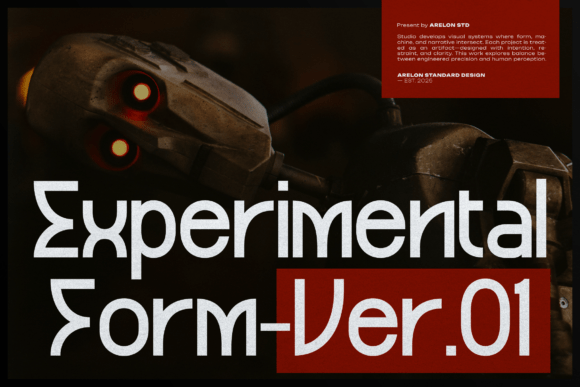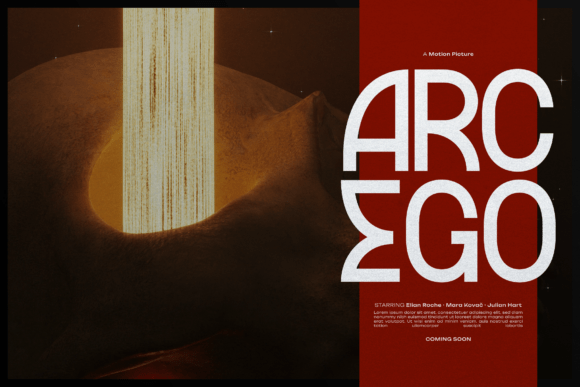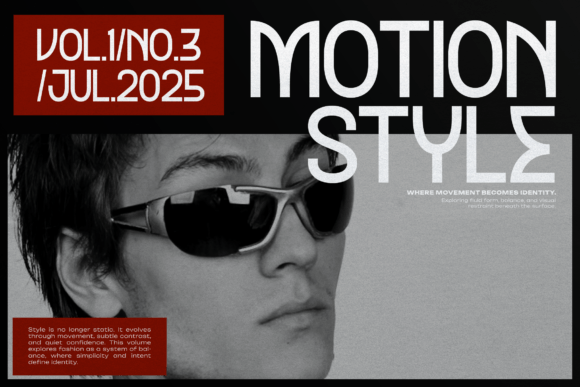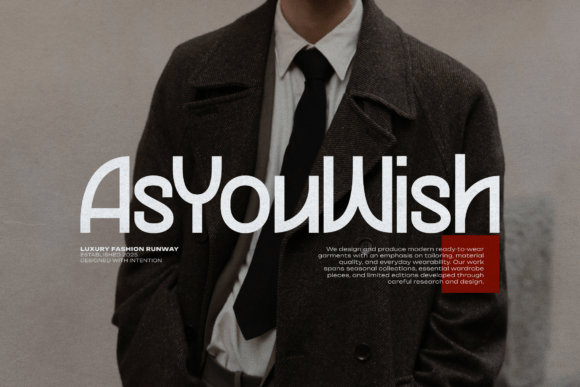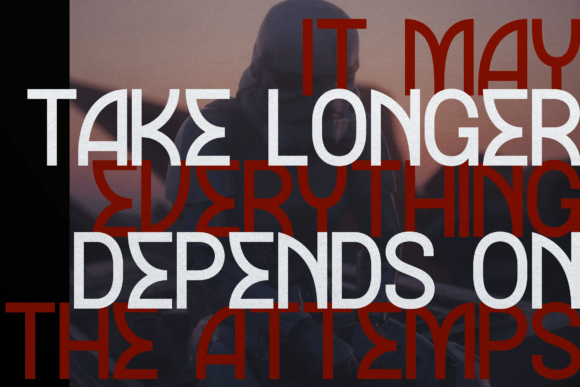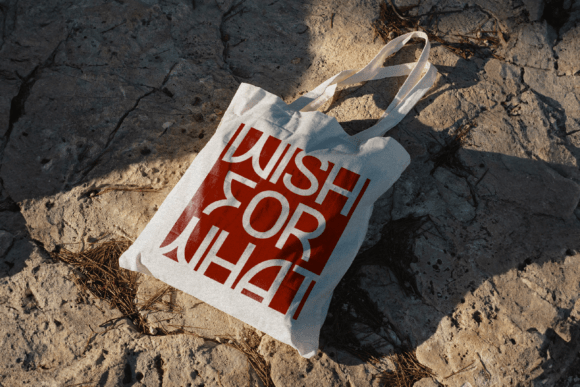
Introduction to Klareon | Display Sans Serif Font
Imagine you’re in the midst of a creative project, pouring over design concepts, and struggling to find the perfect font to elevate your work. The struggle is real, especially when you’re working on a high-stakes project with a tight deadline. But what if you stumbled upon a game-changing design resource that would take your designs to the next level?
Enter the Klareon | Display Sans Serif Font, a bold, futuristic take on modern branding that’s sure to make your designs stand out. With its unique angular cutouts and sharp terminals, this font is perfect for tech companies, gaming interfaces, and avant-garde fashion brands looking for a high-quality, high-impact typeface that’s ahead of its time.
Key Features of Klareon | Display Sans Serif Font
- High-quality design resource ideal for creative projects, offering a clean and modern look.
- Designed to be highly legible at large sizes, making it perfect for headings and titles in creative projects.
- Available in multiple weights, from light to bold, allowing designers to choose the perfect weight for their project.
- Resolution-independent, ensuring that the font looks sharp and clear at any resolution, from low to high DPI.
Honest Review: Klareon | Display Sans Serif Font
I recently stumbled upon the Klareon | Display Sans Serif Font, and I must say, it’s been a game-changer for my design projects. This high-quality font is an excellent addition to any design resource.
- What works well: ✨ The Klareon font has a clean and modern design, making it perfect for creative projects that require a touch of sophistication. The font is available for free download, which is a huge plus for designers on a budget.
While the Klareon | Display Sans Serif Font is a great asset, there are a few limitations I’d like to mention. ⚠️ The font may not be suitable for projects that require a bold or condensed font style, as it’s more geared towards display and headline text.
Overall, I’m impressed with the Klareon | Display Sans Serif Font. Its versatility, high quality, and free download make it an excellent design resource for any creative project. Whether you’re a seasoned designer or just starting out, I highly recommend giving this font a try.
Klareon | Display Sans Serif Font
Tips for Getting the Most Out of Klareon | Display Sans Serif Font
For the best results, use Klareon | Display Sans Serif Font as a design resource for creative projects. Experiment with different font sizes and styles to create a visually appealing design. The font’s high-quality features make it an ideal choice for professional designs.
Klareon | Display Sans Serif Font is a versatile font that can be used for a variety of purposes, including logos, headings, and body text. It’s a great choice for designers looking for a free download that can be used in a variety of creative projects.